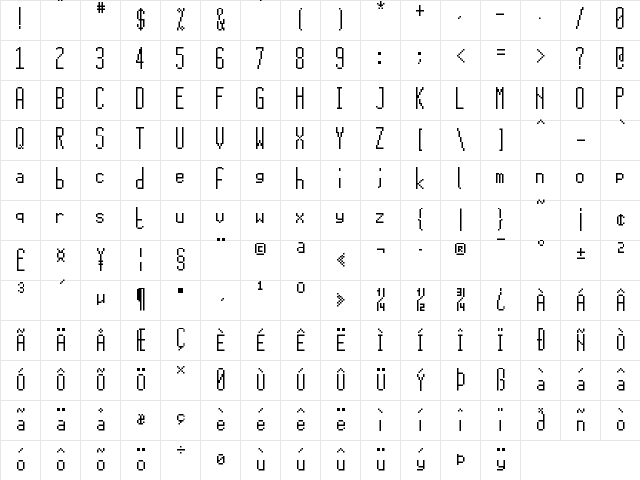
15x5 Regular
| Designer | jffry101 |
Design Context for 15x5 Typeface
15x5 takes a measured approach to typography — its balanced proportions and neutral character make it a reliable workhorse for both digital and print work.